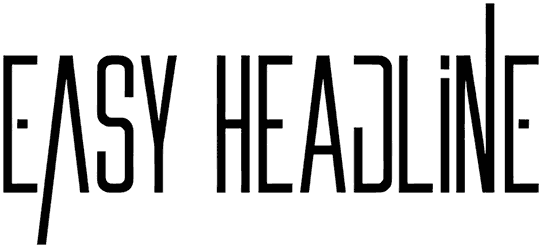
Easy Headline Font
Easy Headline font knows exactly what it came here to do: make your title bigger, cleaner, and harder to skip. It has that display presence designers love when a layout needs instant structure without wasting time on decorative drama. Simple? Yes. Weak? Not even close.
Use it for blog headers, YouTube thumbnails, event posters, product promos, magazine covers, classroom graphics, or social media templates that need clear attention from the first second. Pair this architectural font with strong color blocks, big photos, tight grids, or playful icons, and your design starts looking finished much faster.